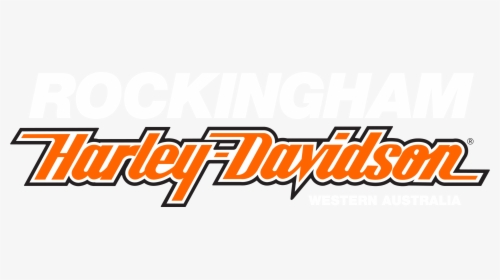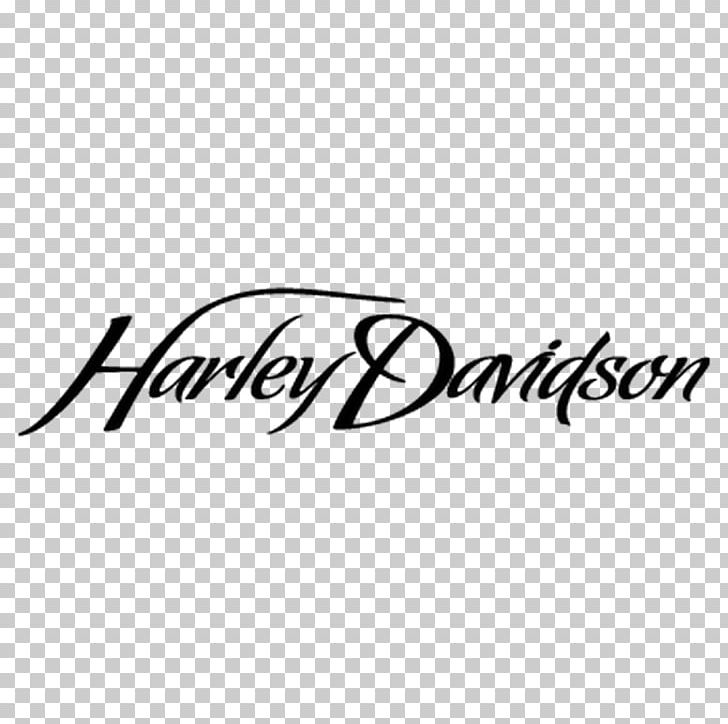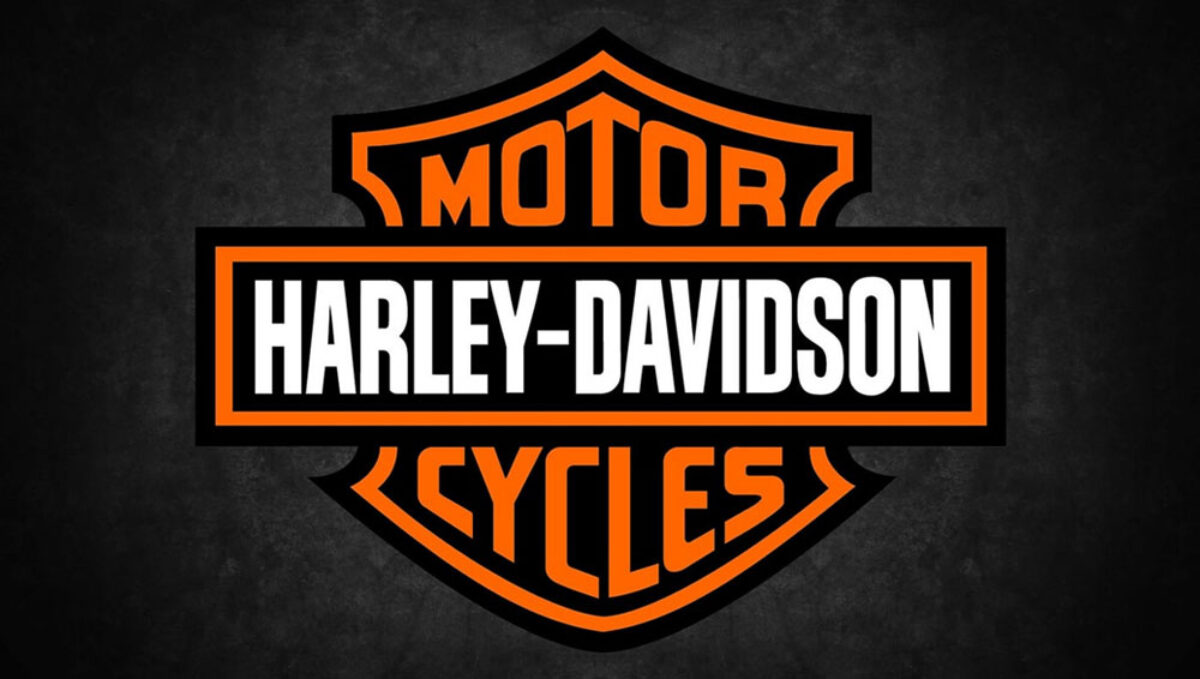
This font is designed by Steve Jackaman and published by Red Rooster Collection. A retro bold script style font come with clean and rough font version.
Block Gothic contains 10 styles and family package options. On the bar and the shield is the text HARLEY-DAVIDSON and MOTOR CYCLES respectively. These arent free though.
Block Gothic was designed by Steve Jackaman and published by Red Rooster Collection. Inspired from retro typography and lettering in the 70s and 80s combine with bold typography styleVintage King is perfect for vintage and retro design badge logost-shirt poster branding packaging signage book coverand so much moreCome with Opentype feature with a lot of alternates its help you. The font used for the text is very similar to.
Login Register. Looking for Harley Davidson fonts. Block Gothic RR Bold ExtraCond is the font used in the Harley-Davidson logo.
The most popular color. The text Harley-Davidson on the logo we identify is created by Block Gothic Font. The Harley Queen by Natural Ink 400 USD.
Harley Davidson is an American motorcycle manufacturer founded in Milwaukee in 1903. Classic Harley-Davidson Font There are two premium fonts that replicate the famous logo. Custom Harley Scripttxt within zip-file harley-script.
Fonts 1 - 1 of 1. It can be used for various purposes such as logos wedding invitations t-shirts letterheads signage news posters badges and more. The Harley Queen by Natural Ink 400 USD Harley Queen is a fun vintage script font.
Hi looking to identify this font used by Harley Davidson Motorcycles want to have my tank repainted and this is the script I want from other Harley bikes I have seen. Not free for commercial use. Free for personal use.
The variety that Harley-Davidson font provides allows the creator to make super cool and dazzling designs with effectiveness and rapidly. Click to find the best 17 free fonts in the Harley Davidson style. The Compacta font designed by Fred Lambert and the Block Gothic RR Bold ExtraCond by Steve Jackaman.
1 Review Hide Reviews Show Reviews 5 Harley decal. Every font is free to download. Sweet Harley is perfect for poster design book covers merchandise fashion campaigns newsletters branding advertising magazines greeting cards album covers quote designs and moreFeaturesUPPERCASElowercaseNumber.
It can be used for various purposes such as logos wedding invitations t-shirts letterheads signage news posters badges and more. What Font Was Used in Harley-Davidson Logo.